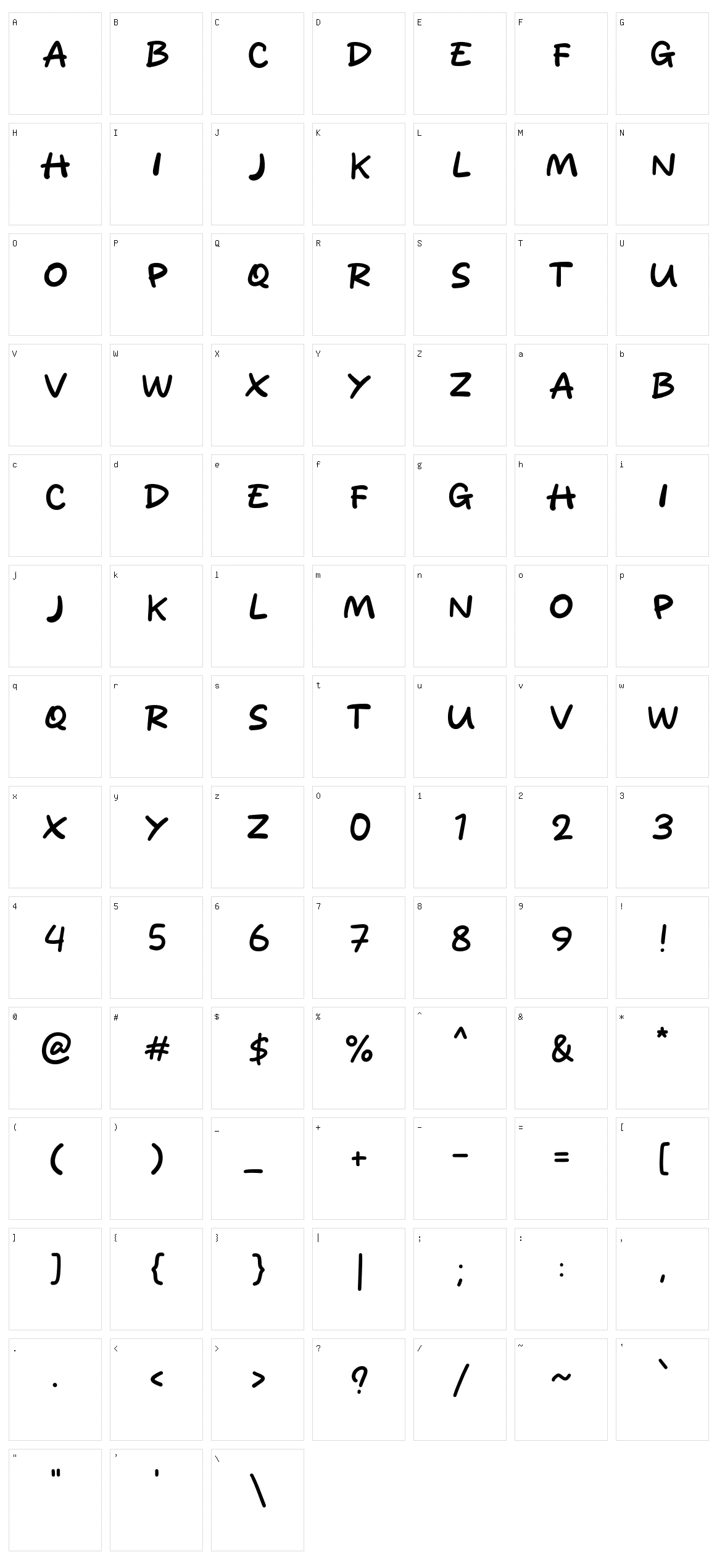
The free font Being Boring is carefully designed by Khurasan, showcasing a thoughtful balance of creativity and usability and falls under the Script font style. When you download the ZIP file, it contains only 350.12 KB of font files, making it lightweight and quick to download. Please review the license details below to understand permitted usage and distribution rights. If license information is not available, we recommend using this font for personal projects only or contacting the author directly for commercial usage permissions.